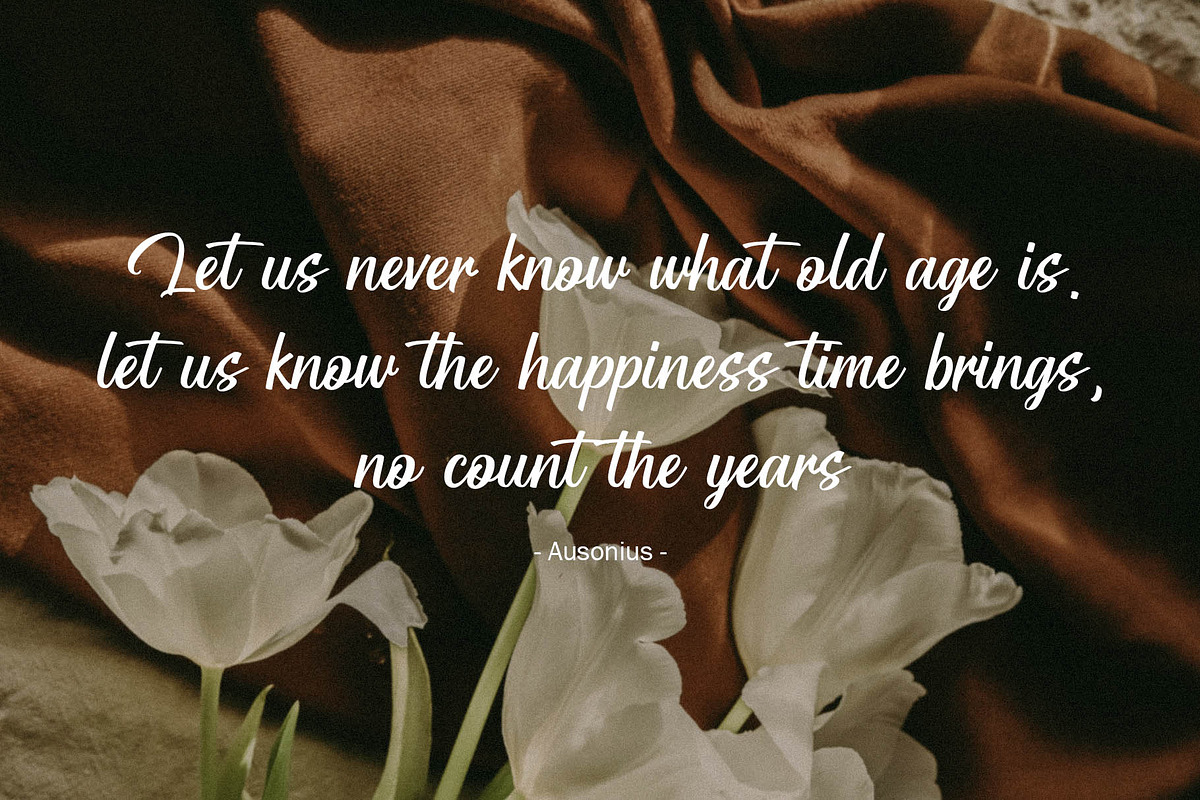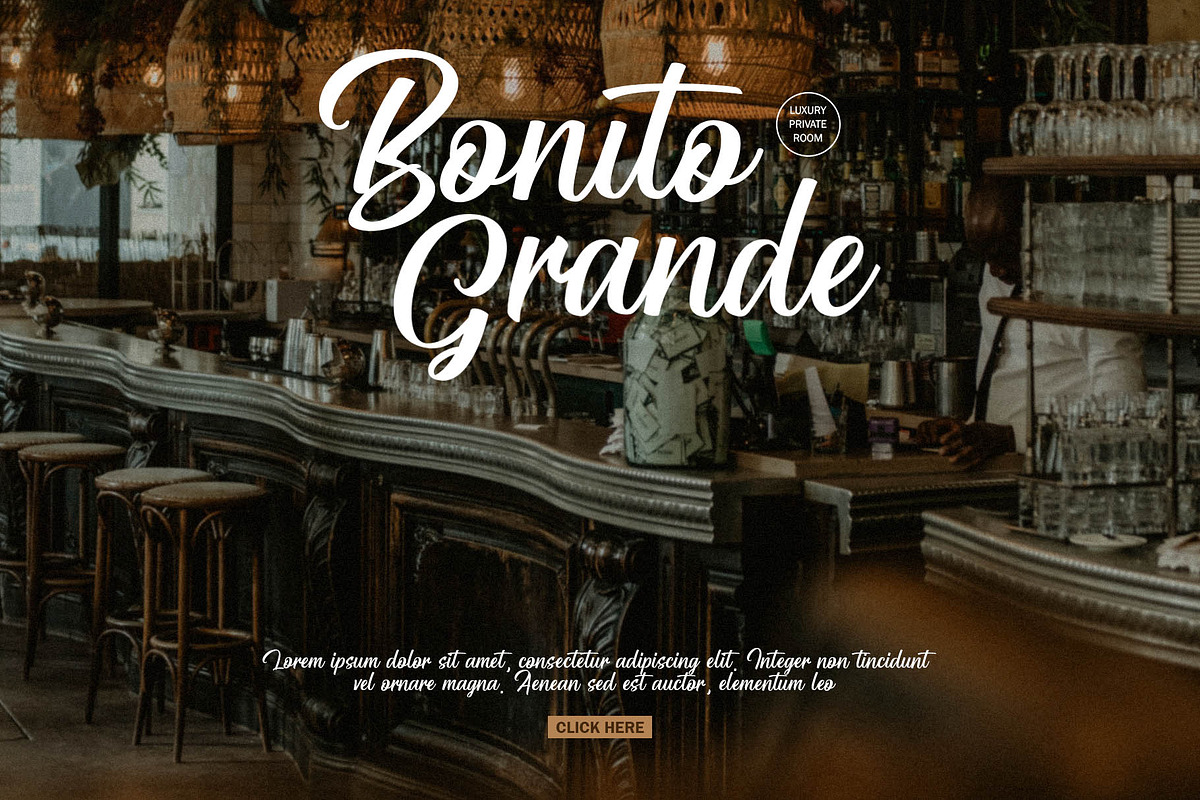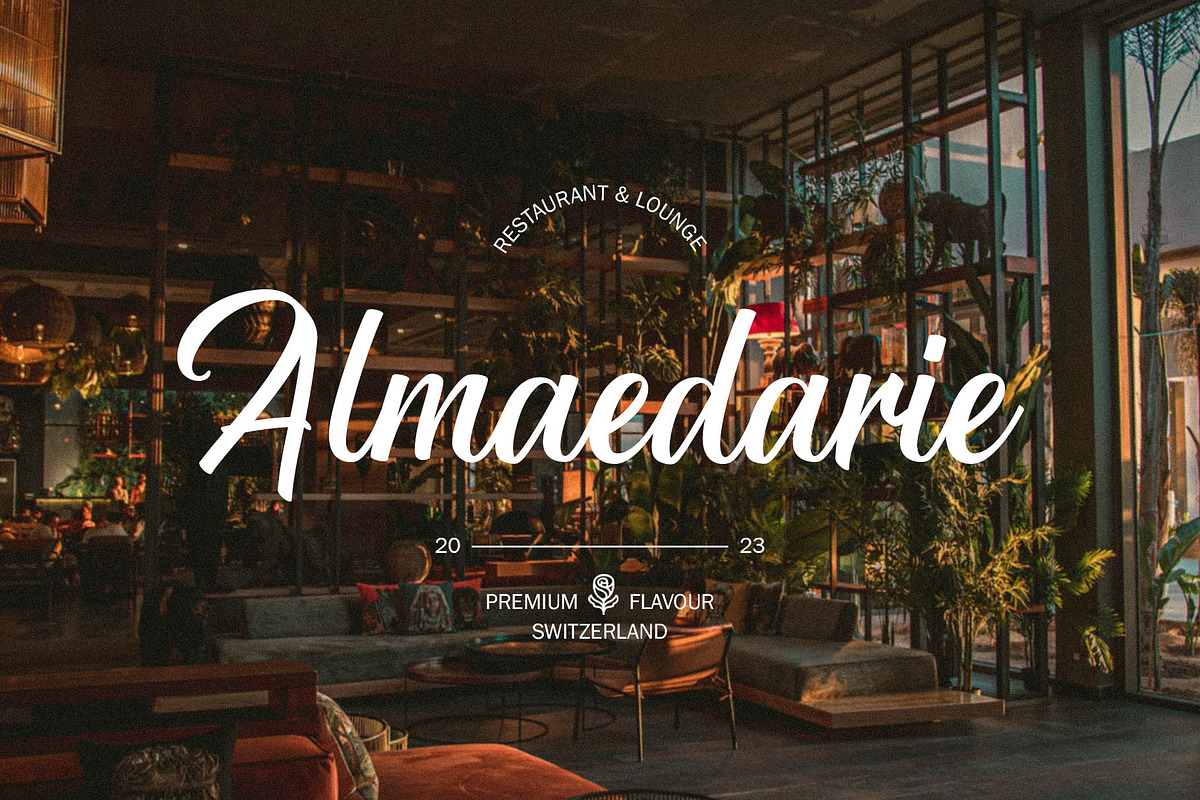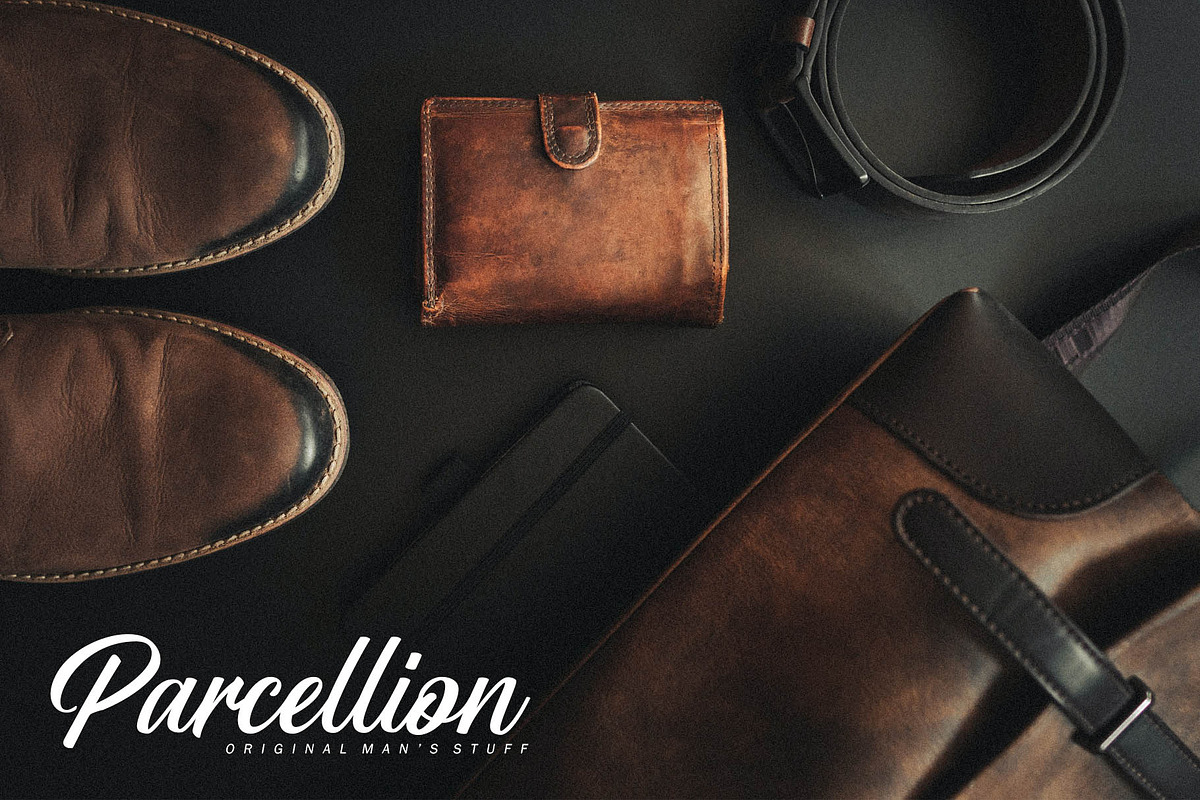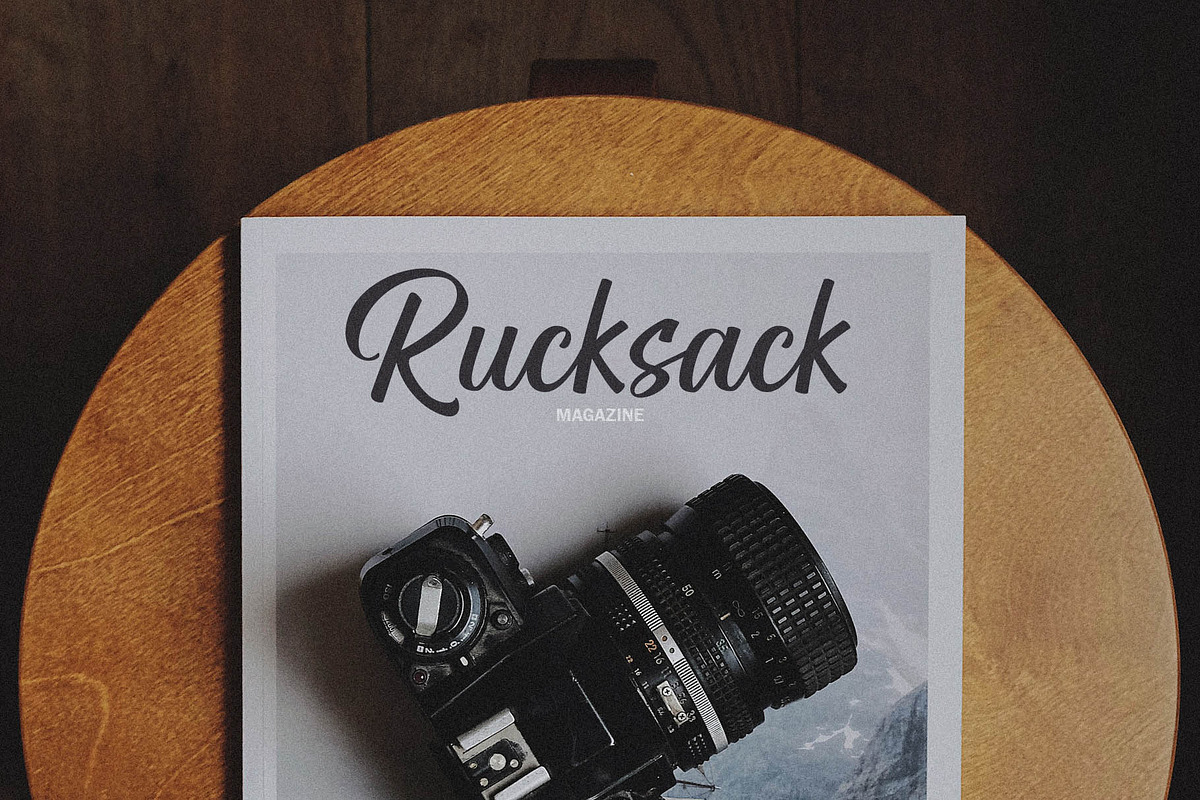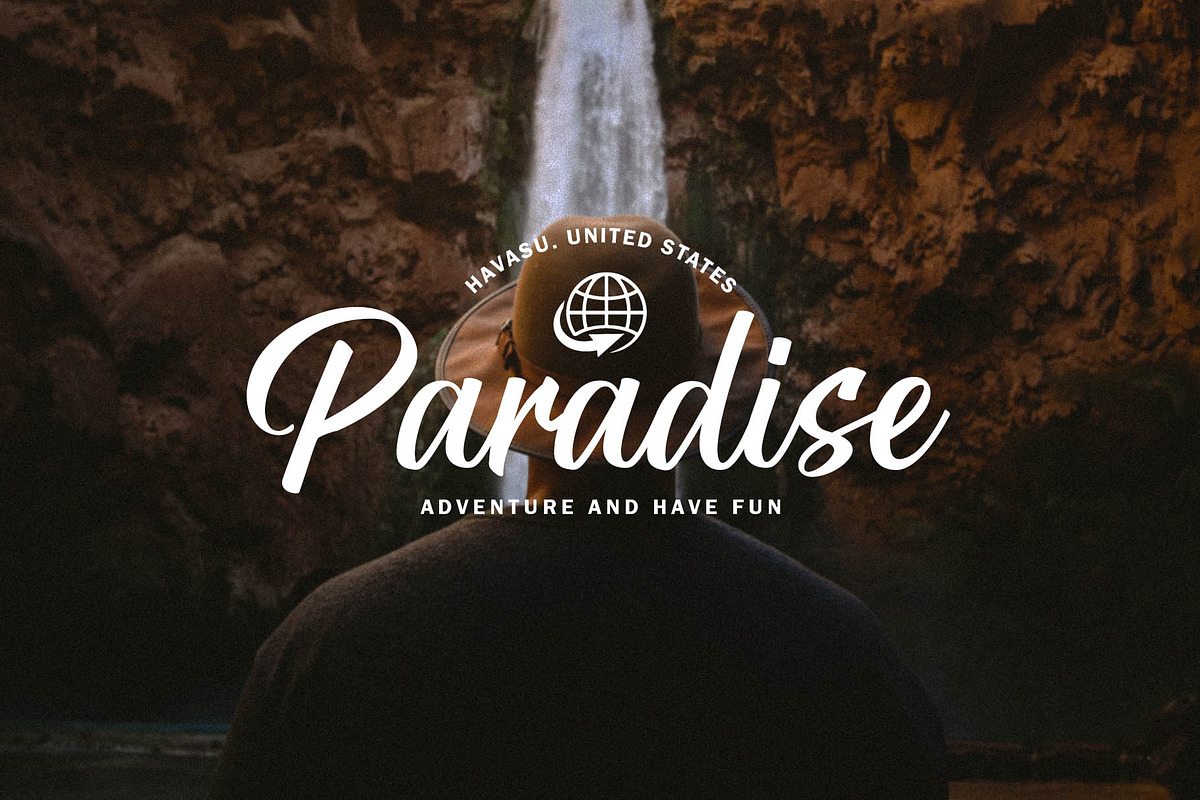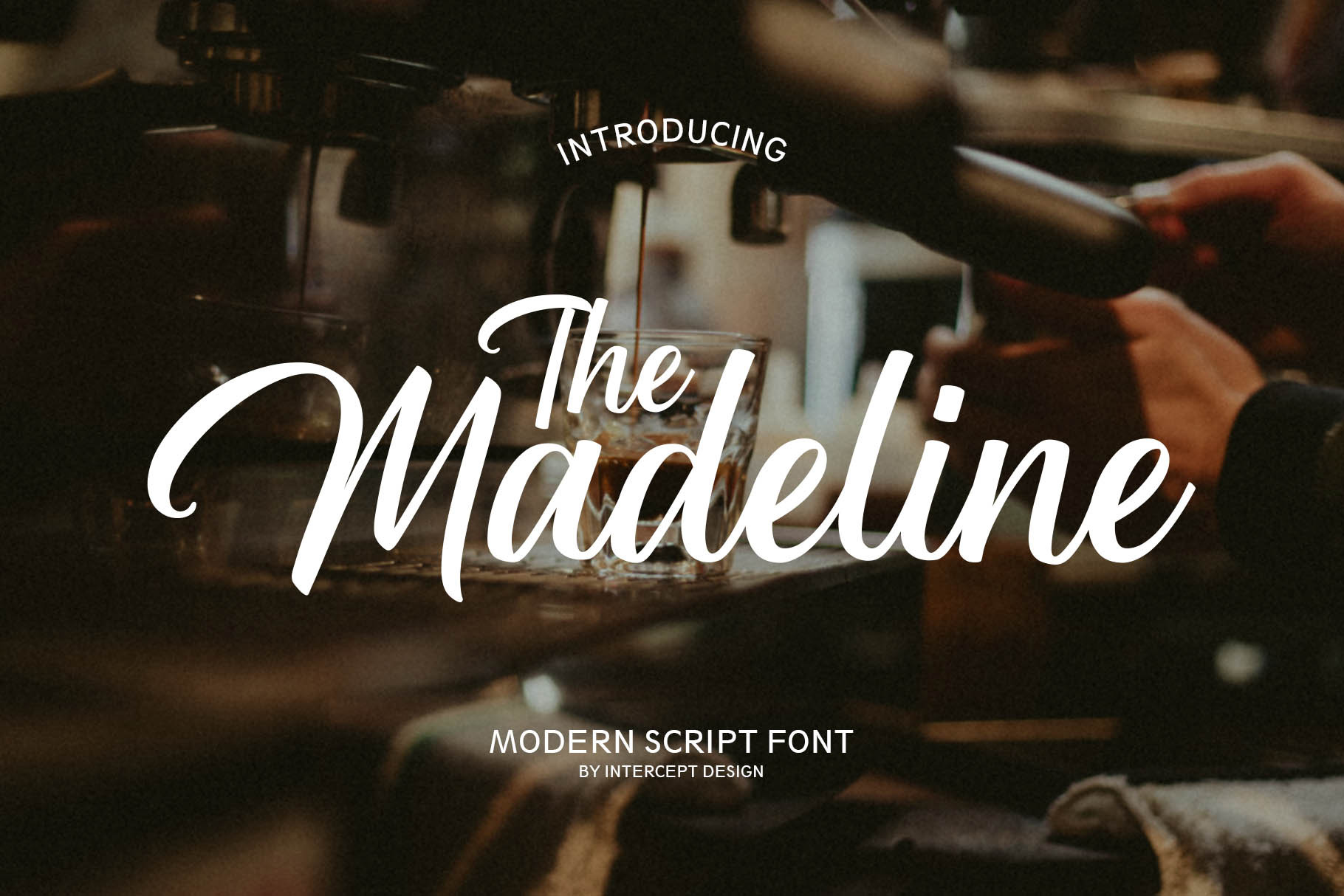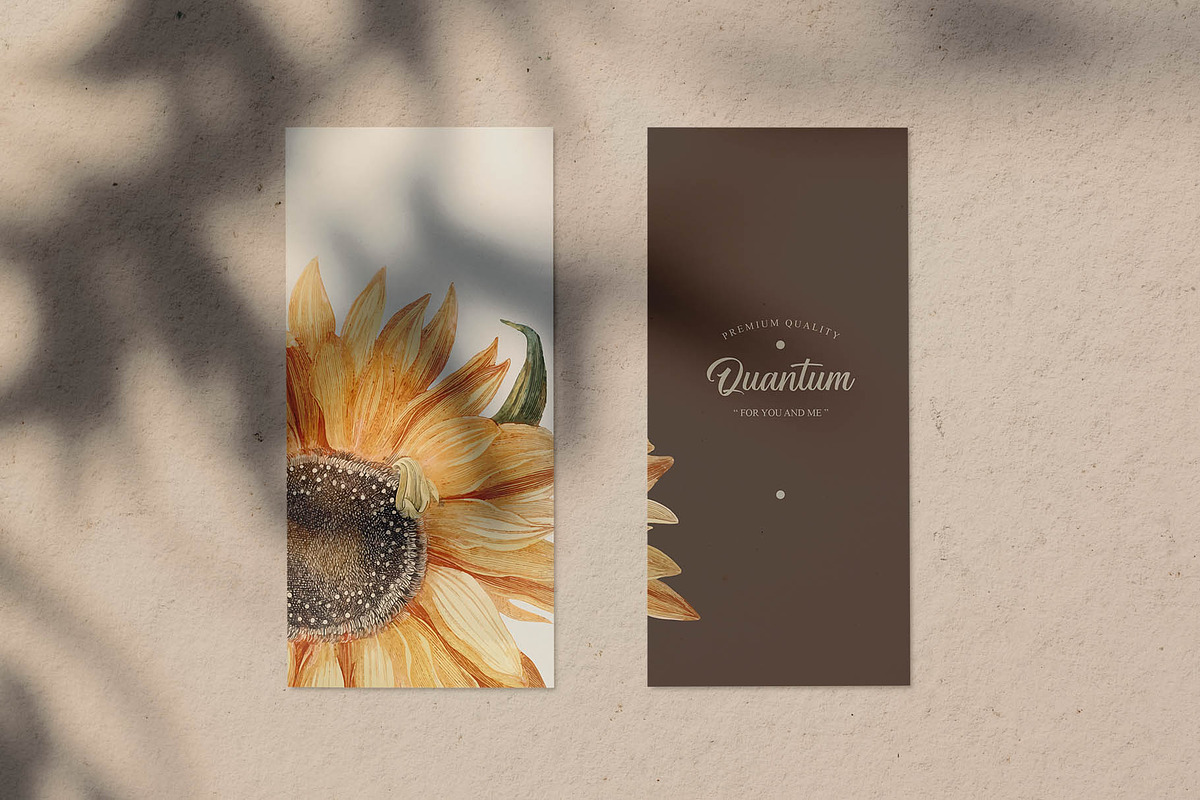
The Madeline - Modern Script Font
The Madeline is a Script Font. This fonts includes uppercase letters, numerals, a large range of punctuation. This font was created in a Modern style. Created for poster, wedding, web design, branding, illustrations, badges and some other works.